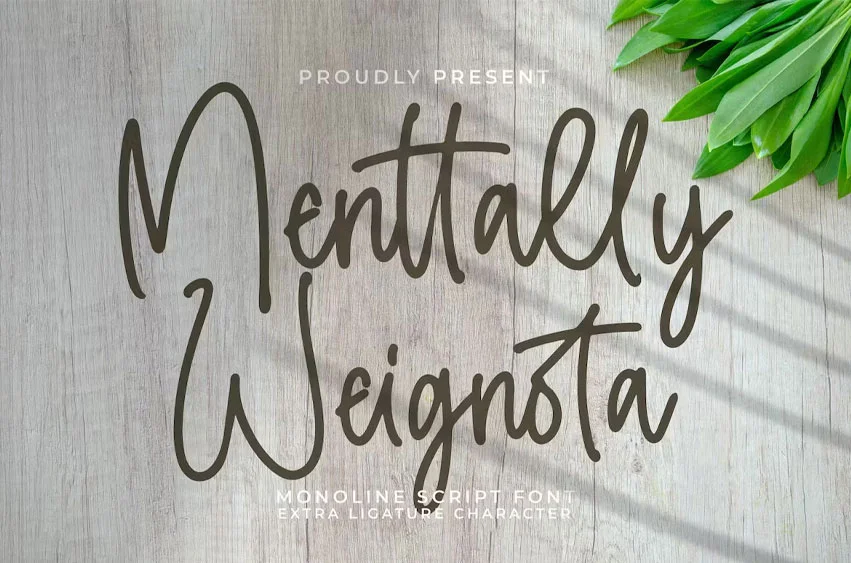
Menttally Weignota Font Monoline Script Font, from Integritype Studio, is a premium Script Font, perfect for any project that requires a distinctive, premium feel.
Ligature, Alternate & Multilingu